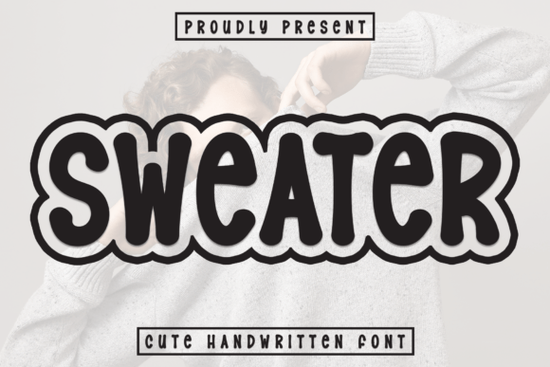
If you’re looking for a handwritten display font that feels warm and inviting, Sweater Font might be exactly what you need. It’s designed to bring charm and personality to projects like wedding invitations, greeting cards, and playful branding. The letterforms are lively without being too loud, making it easy to read while still adding a handcrafted feel.
What makes Sweater Font different from other handwritten fonts?
Many handwritten fonts lean toward either messy or overly formal. Sweater Font strikes a balance: it’s endearing and amiable, with a style that feels both elegant and playful. The strokes are smooth, the curves are friendly, and the overall vibe is heartwarming. It’s not trying to be edgy or trendy it’s built to deliver a vibrant, joyful message that resonates with people.
How can designers and crafters use Sweater Font in real projects?
Here are some practical ways to put Sweater Font to work:
- Wedding invitations – Its lively elegance fits nicely on save-the-dates, ceremony programs, and thank-you cards.
- Greeting cards – Birthday, anniversary, or just‑because cards feel more personal with this handwritten look.
- Social media graphics – Use it for quote posts, announcements, or any content that needs a friendly touch.
- Logos and branding – Small businesses, bakeries, and boutiques can use Sweater Font to create approachable, memorable identities.
- Print-on-demand products – T‑shirts, mugs, tote bags, and posters with uplifting phrases sell better when the font matches the mood.
- DIY party decorations – Banners, cupcake toppers, or place cards become extra special with a handwritten feel.
Is Sweater Font easy to read for both print and digital use?
Yes. Despite being a display font, it doesn’t sacrifice readability. The letter spacing is well balanced, and the uppercase and lowercase characters are distinct. It works well at medium to large sizes think headlines, subheadings, or short phrases. For body text you’d still want a simpler sans serif, but for the main message on a poster or card, Sweater Font is perfectly clear.
For print-on-demand sellers, this is key: a font that looks great on screen but prints muddy or loses legibility will hurt your sales. Sweater Font holds up nicely in print because the lines are consistent and the style isn’t overloaded with extreme flourishes.
How does Sweater Font compare to other playful display fonts?
There are hundreds of playful fonts out there, but Sweater Font stands out because of its heartfelt personality. It’s not overly cute or cartoonish; it’s genuinely charming. That makes it versatile enough for wedding stationery (where you need elegance) and children’s party invites (where you need fun).
Practical tips for using Sweater Font in your next project
- Pair it with a neutral sans serif – Use a clean font like the same style for body text, or a simple geometric sans to let Sweater Font shine.
- Mix uppercase and lowercase – All caps can be too intense; a mix creates the natural handwritten rhythm.
- Adjust tracking for readability – A little extra letter spacing can improve legibility, especially on signs or social media.
- Test on your products – Before uploading to print‑on‑demand platforms, do a mockup to see how the font looks on a mug or shirt.
- Use a light background – Sweater Font works best on white or pastel backgrounds where its warm tone stands out.